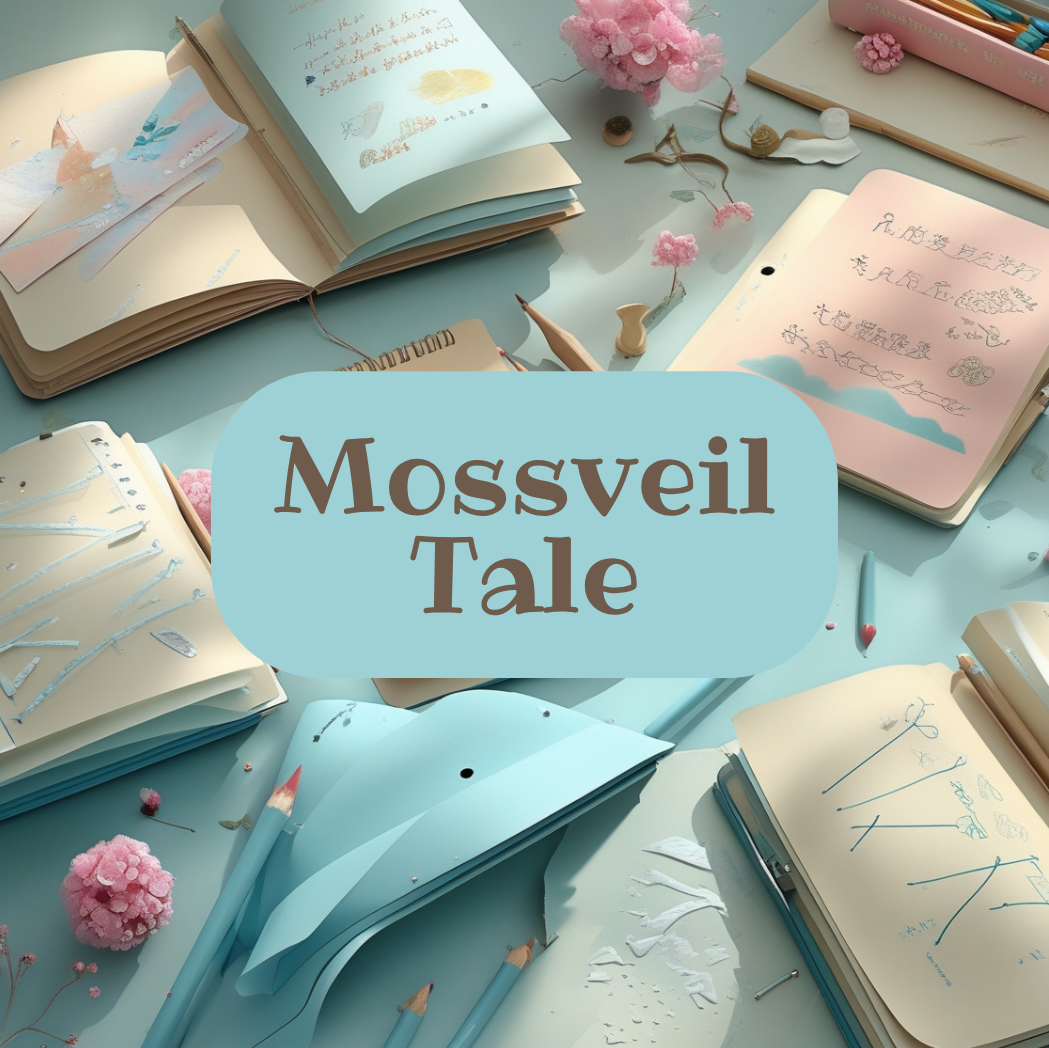
Mossveil Tale
Mossveil Tale is designed for visual storytelling. Each letter intertwines with texture and subtle form, resembling the organic curves of bark and leaves. Ideal for book layouts, greeting cards, or one-of-a-kind packaging. Includes decorative strokes and alternative character options. Scales well while retaining its charm. Built for those who value hand-shaped work and a sense of flow. Adds depth and quiet emotion without overpowering.